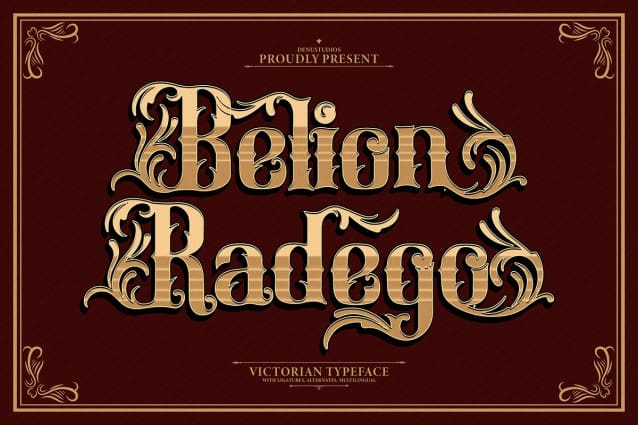
Belion Radego Font
Belion Radego Font | Victorian Typeface, from Denustudios, suitable for any projects such as: logos, branding projects, homeware designs, product packaging, mugs, quotes, posters, shopping bags, t-shirts, book covers, name card, invitation cards, greeting cards, label, photography, watermark, special events, and all your other lovely projects that need a Victorian Typeface taste.